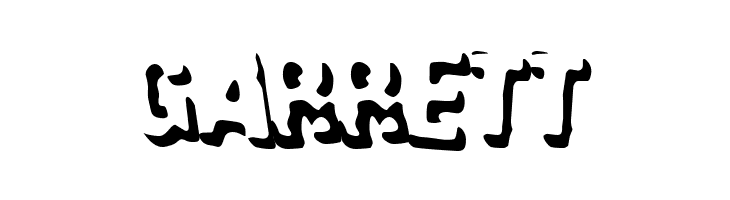
Khaostt Regular Font
- Font: Khaostt Regular
( Fonts by Rob Dobi - Toxic Type - www.dobi.nu )
A bold, abstract font with jagged, irregular edges and a graffiti-like style.